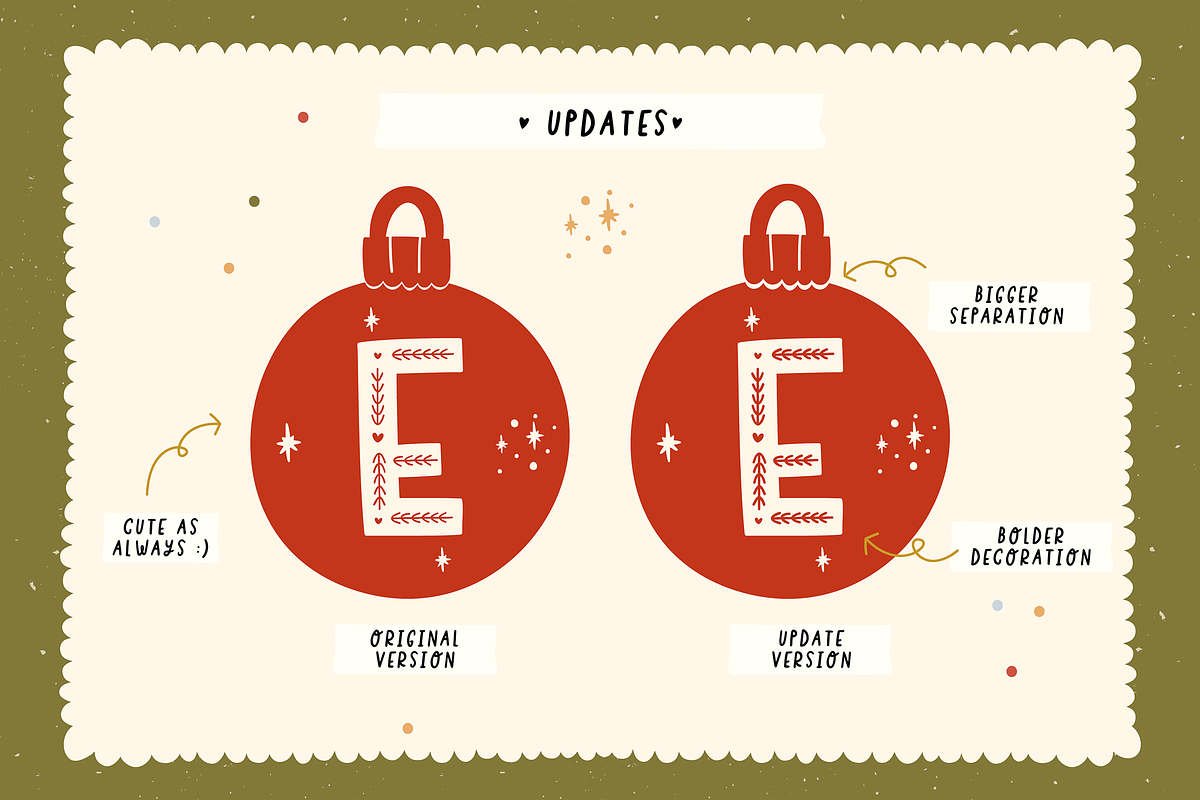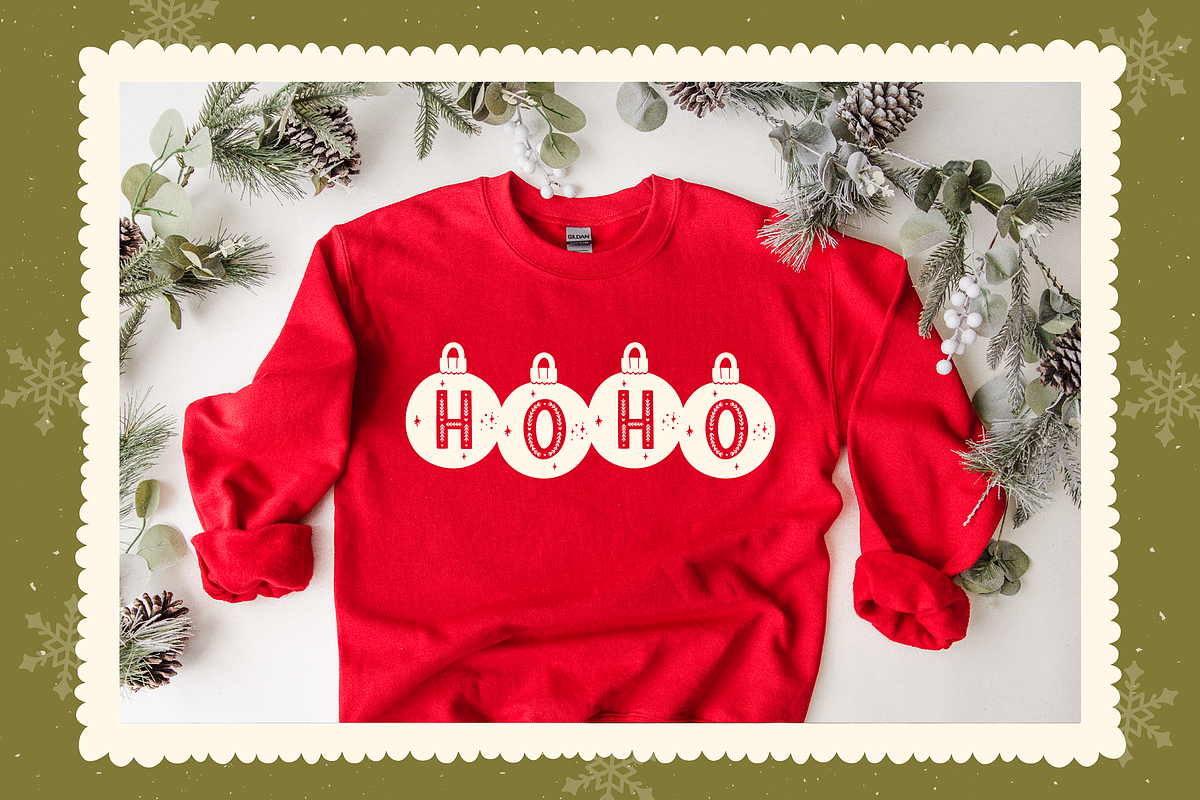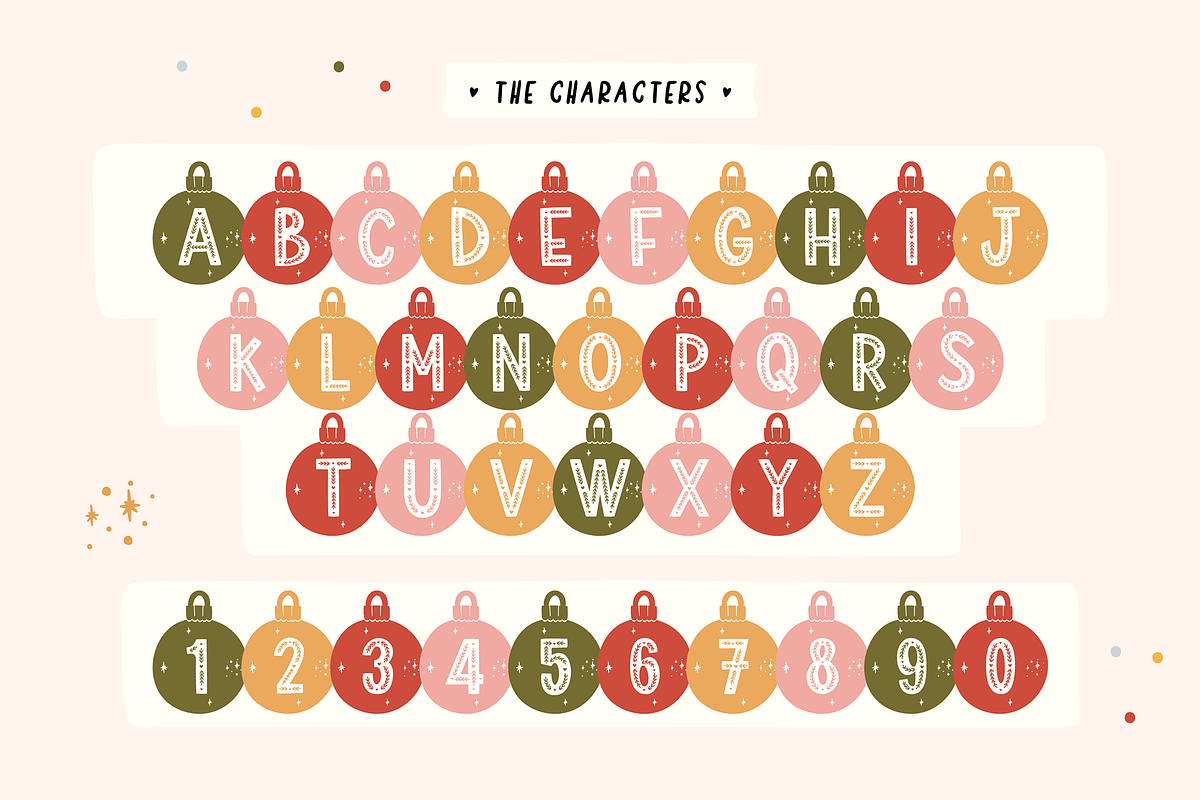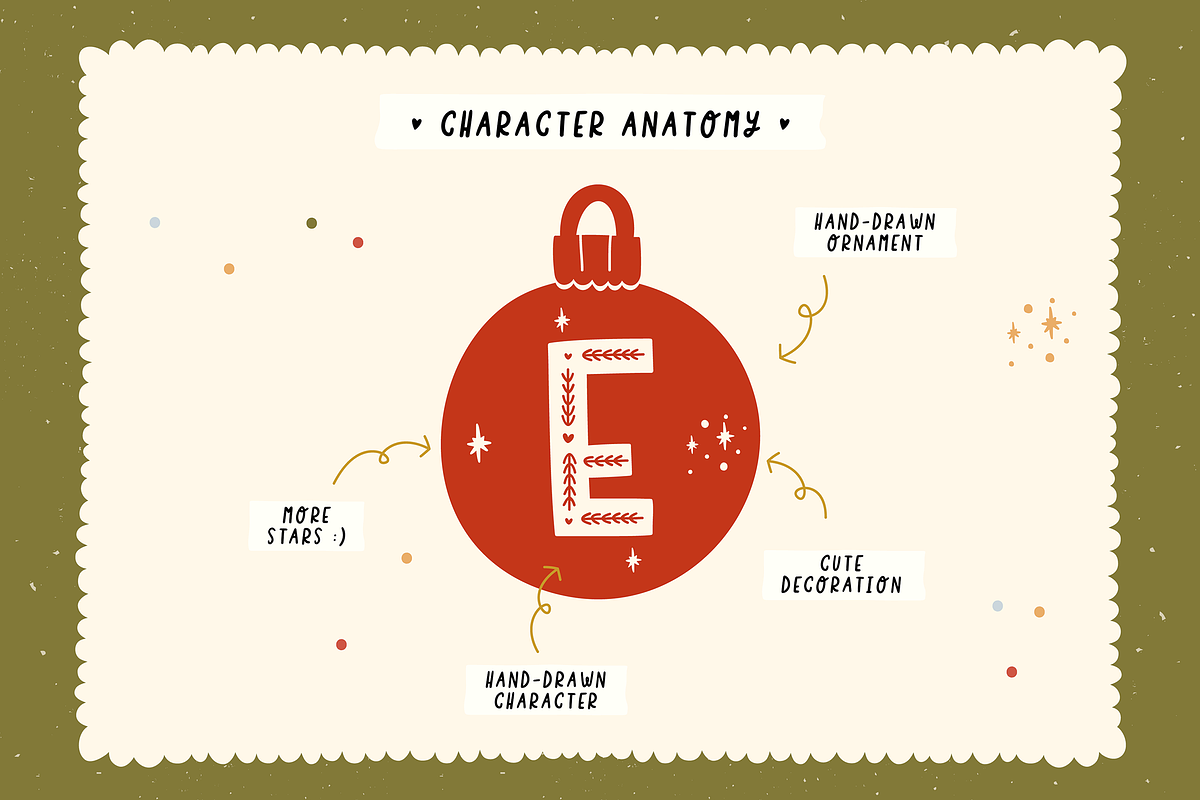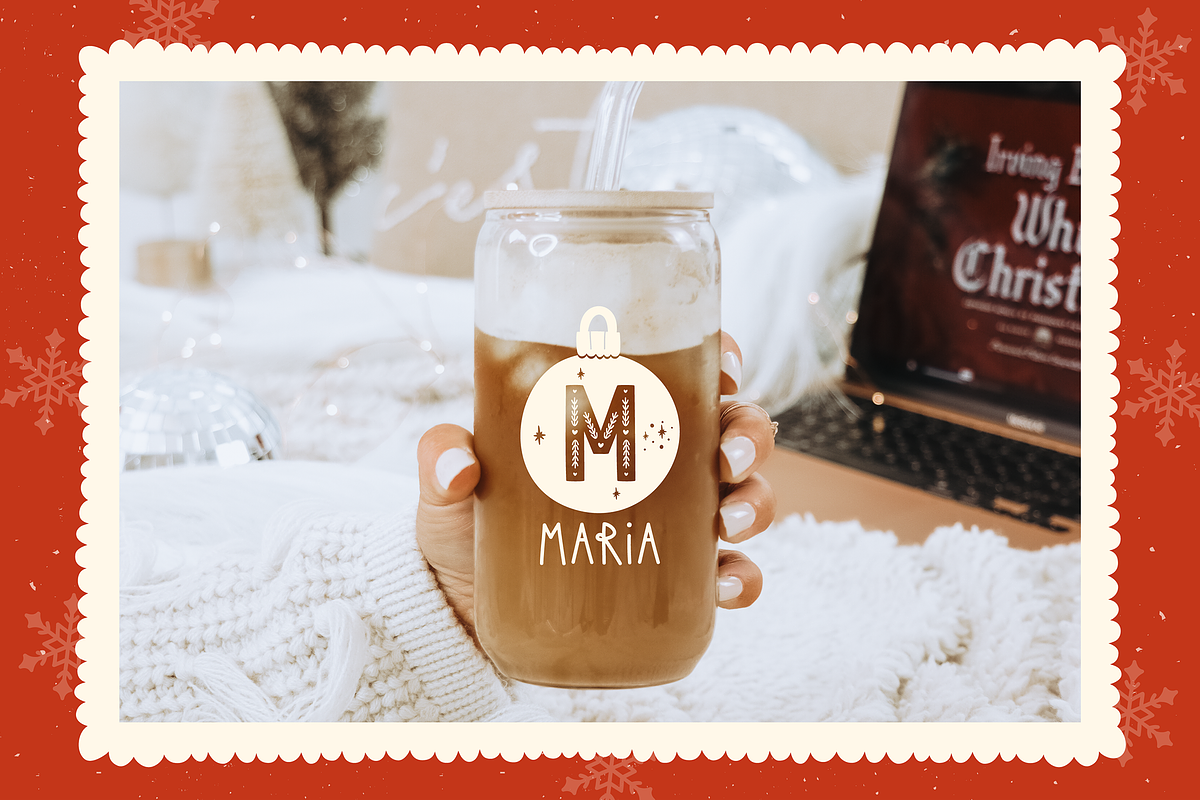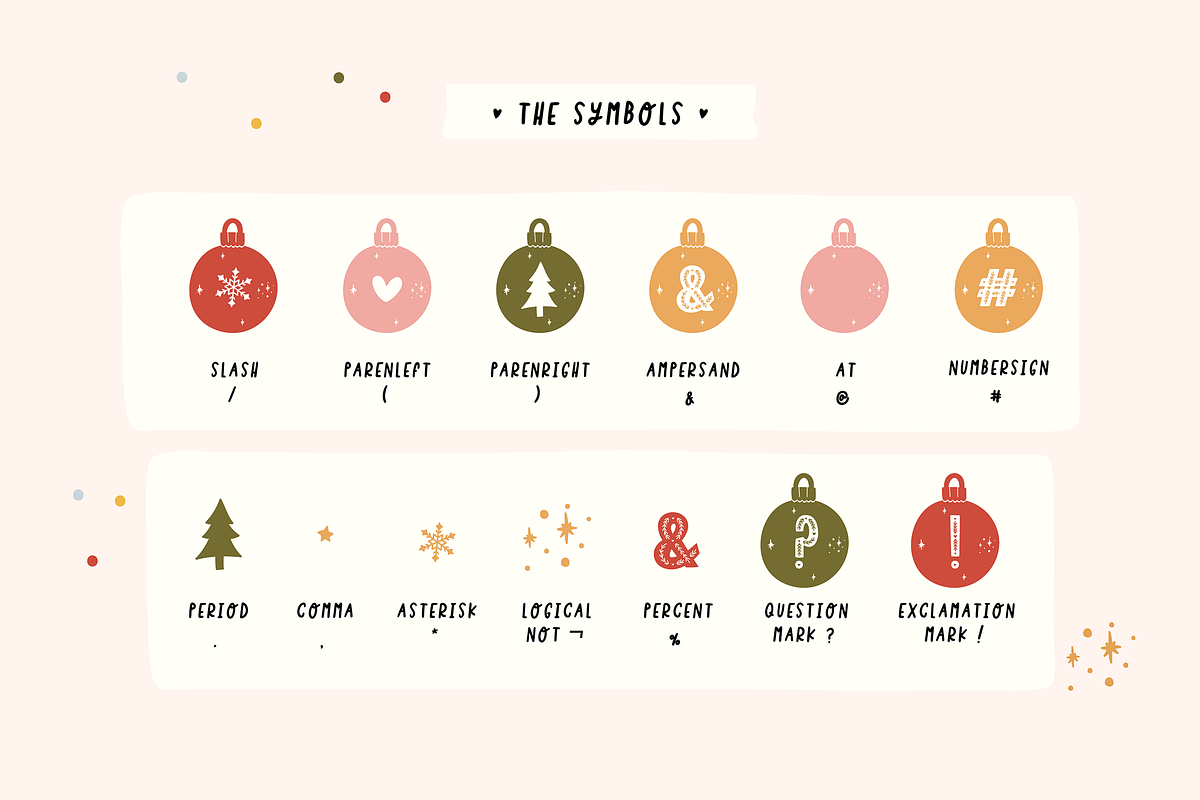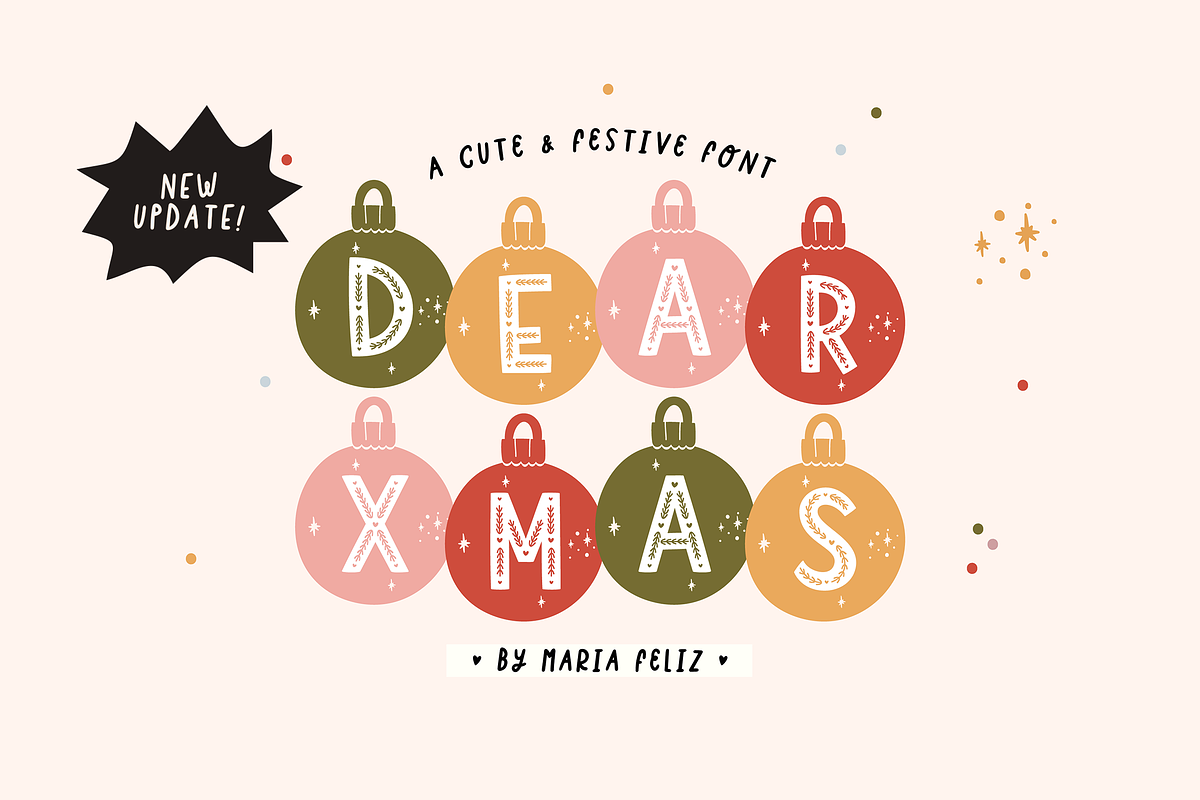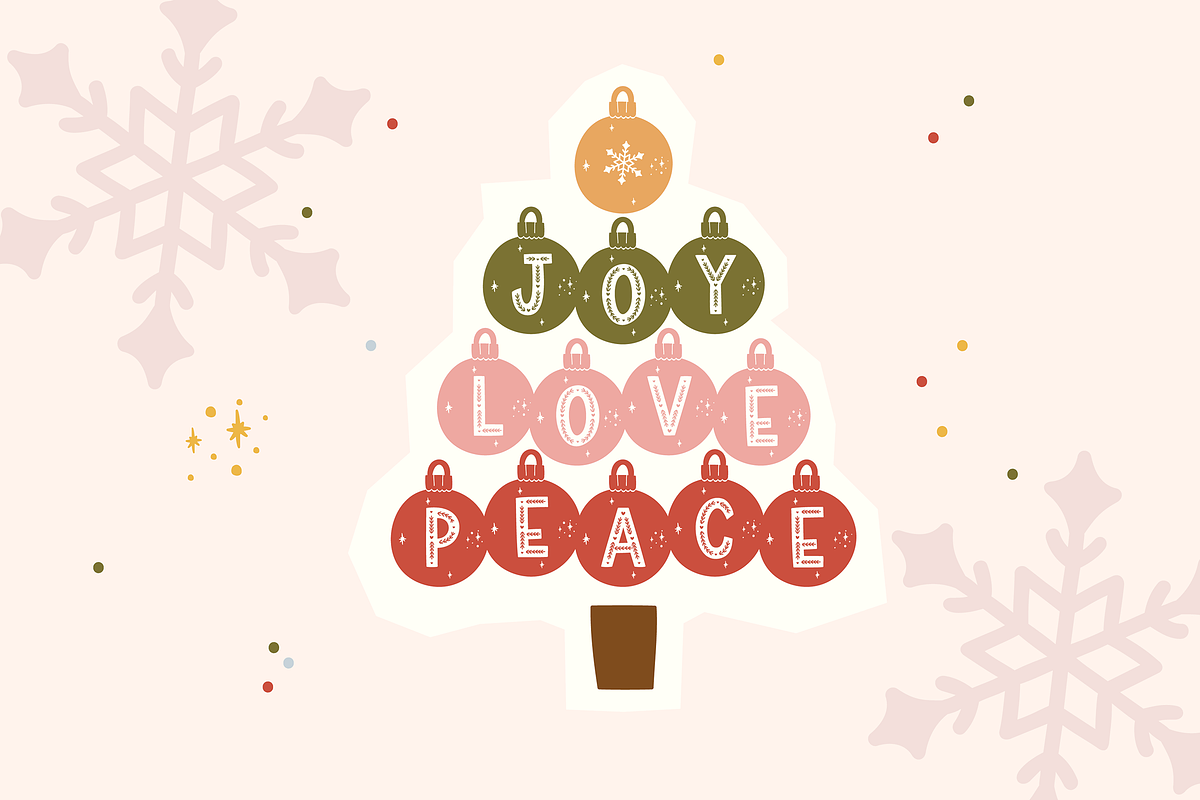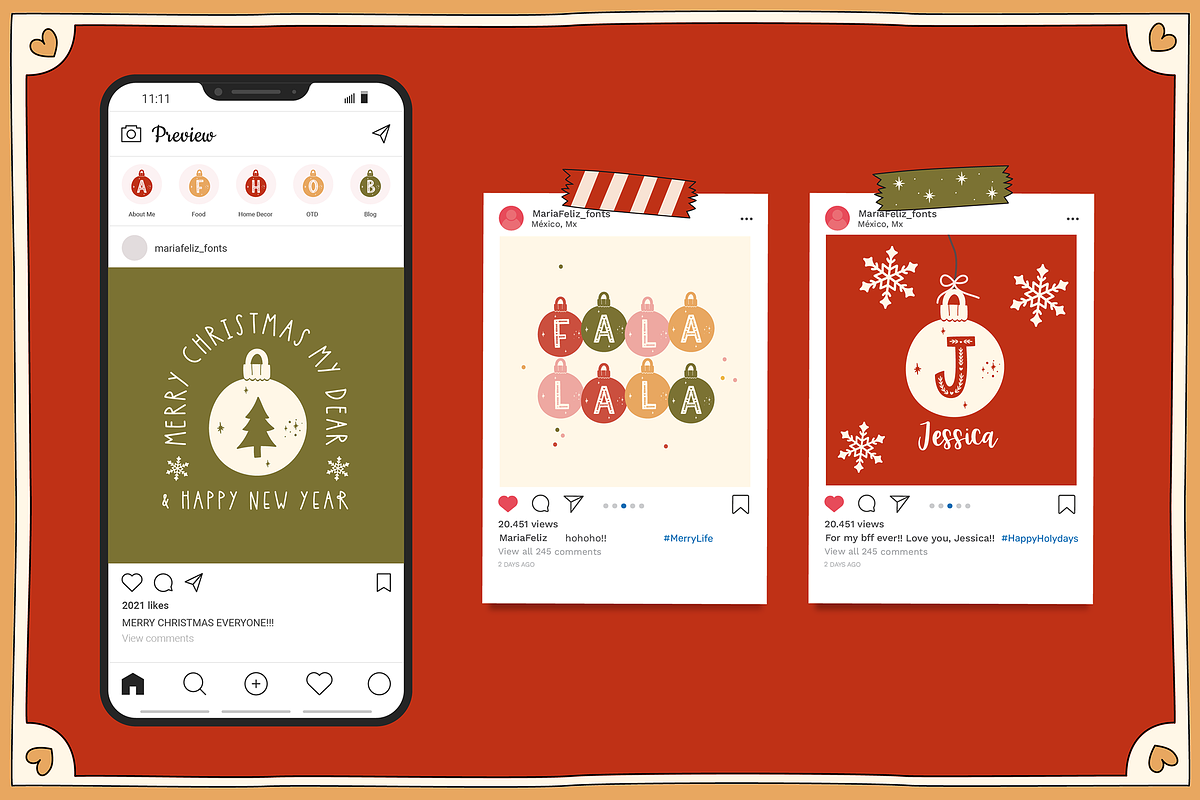
DEAR XMAS
DEAR XMAS is a festive, cute and awesome font.
This font is perfect for Christmas quotes, products, social media, and more!! Be creative and have fun with this amazing font.
- The original version was also updated. (We added 3 new symbols; the question mark, the exclamation mark, and the number sign)
- I created a new version because I felt that a slightly thicker version would also look great. That's why I wanted to give you this other option. But you can decide which option or version you want to use. The variation is very small, but trust me, it makes a big difference.
- The marketing images shown here were also updated using the new version, meaning that "DEAR XMAS II" font was used in all of them.
✷ Mix & match uppercase and lowercase letter to get an easy quirky result in your designs